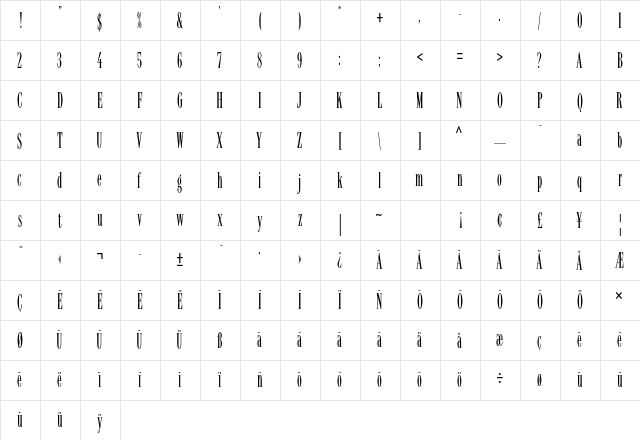
Latino Elongated Std Regular
| Designer | David Quay |
Design Context for Latino Elongated Std Typeface
Latino Elongated Std offers clean, dependable letterforms without strong stylistic allegiance, making it a practical choice for designers who need flexibility.